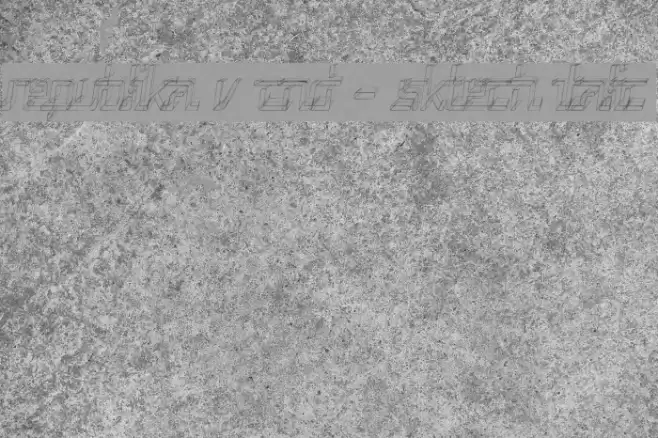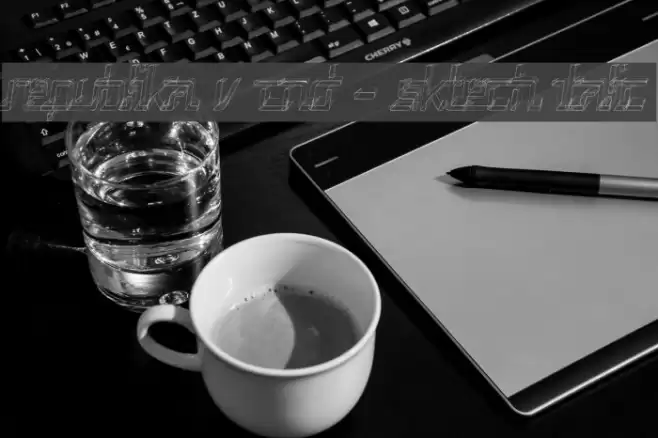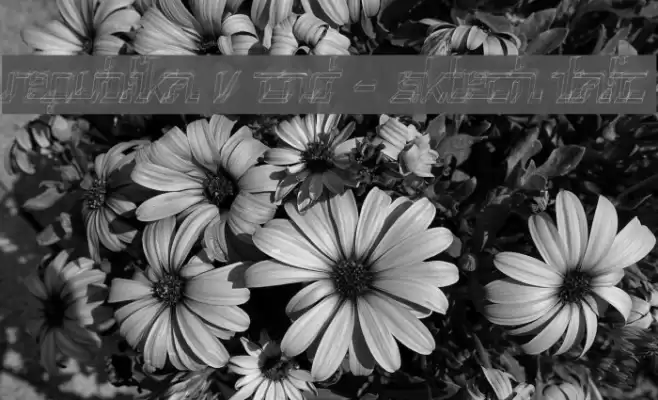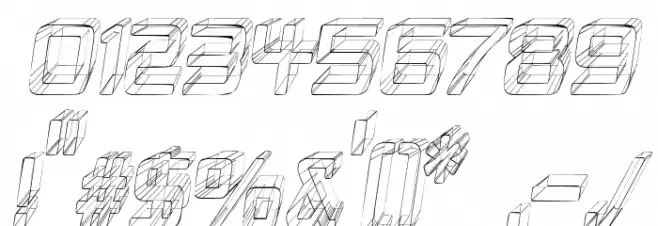
Republika V Cnd - Sktech Italic Font
Republika V Cnd - Sktech Italic Description
This font features a unique sketch-like appearance with a condensed and italicized style. The characters are outlined with a hand-drawn effect, giving them a dynamic and artistic look. The uppercase and lowercase letters maintain a consistent slant, enhancing the italicized feel. Numbers and special characters follow the same design principles, ensuring uniformity across all glyphs. The font's playful and creative aesthetic makes it stand out, ideal for projects that require a touch of individuality and flair.
A sketch-style, condensed italic font with a hand-drawn effect from Uncategorized fonts.
- Proposed Projects: Ideal for artistic projects, creative branding, posters, and unique graphic designs.
- Use Case: Logos, Posters, Creative Branding